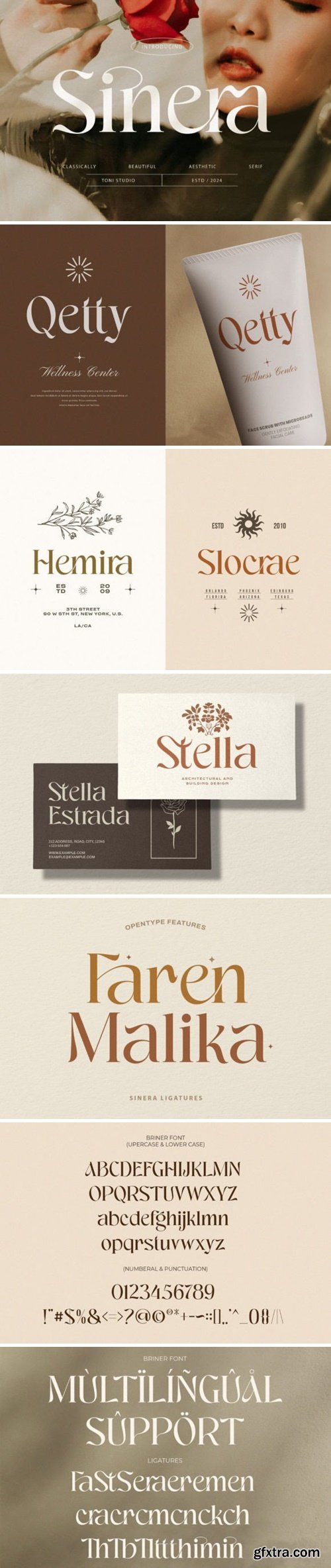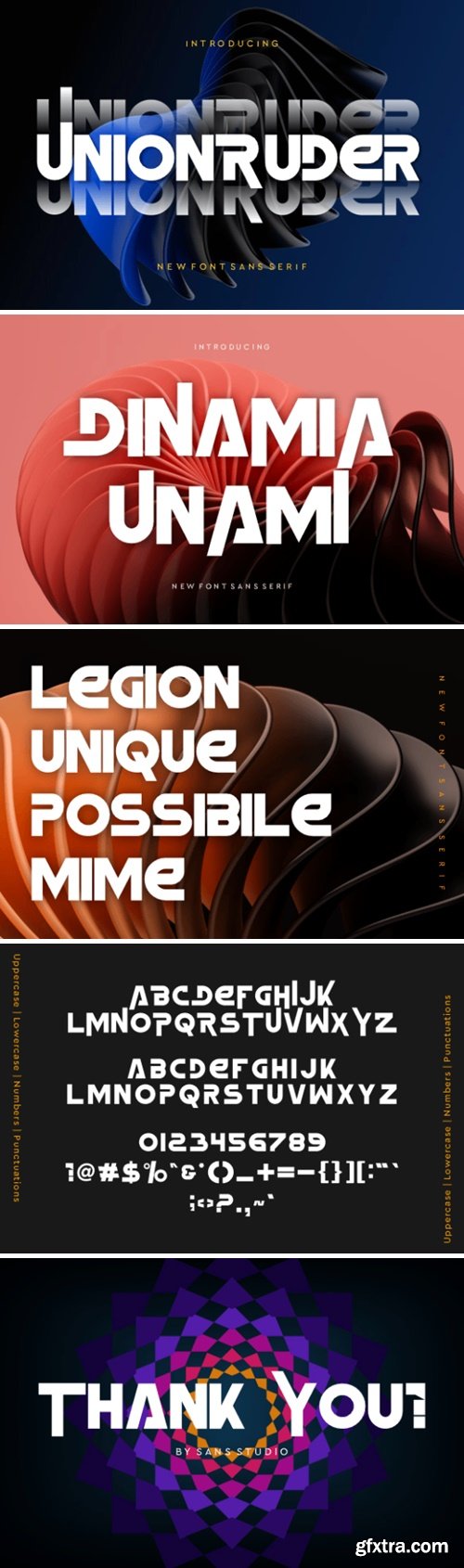
Sinera Font
Sinera Serif is a classy font that emphasizes elegance and simplicity. Designed with smooth, minimalist connecting lines, this font is ideal for use in titles, descriptions, logos, branding, magazines, product packaging, and invitations. Every curve and connection is created with style, providing a clean and elegant feel. Clean lines and soft curves provide a luxurious feel that will enhance the aesthetic of any project, making it the perfect choice for any design need.
Flash Turbo Font
Flash Turbo is a bold, futuristic display font designed for racing themes. Its sharp and fast-looking style makes it perfect for car racing logos, posters, and video games. The font gives a strong, high-speed vibe, ideal for anything related to speed and excitement.
Arleta Font
Introducing, Arleta, our modern and elegant sophisticated serif. This typeface is carefully crafted to ensure premium quality and a luxurious feel. The soft curves make this typeface unique and stand out, very suitable for logos, headlines, titles, and various other formal forms such as invitations, labels, logos, magazines, books, greeting/wedding cards, packaging, fashion, make-up, stationery, novels, labels or any kind of advertising purposes.
Unionruder Font
UnionRuder Sans-serif fonts are a type of typeface that lack the small extensions, known as “serifs,” at the ends of the letters. The name “sans-serif” comes from the French word “sans,” meaning “without.” These fonts are recognized for their clean and modern look, making them a popular choice for digital media and user interfaces.
Enhance your design projects with **Adoo Bado**, a bold and modern sans serif font that combines clean lines with a sleek, contemporary aesthetic. Featuring a full set of uppercase and lowercase characters, this typeface is ideal for creating impactful headers, striking logos, and eye-catching typography.
Manufake Font
Introducing Manufake, a blackletter typeface tailored for the innovative and avant-garde, featuring a distinctive blend of contemporary and classic aesthetics. The font encapsulates an air of sophistication while maintaining a streak of cool edge, making it a versatile tool for multiple languages. Flourishing in large scales and italic styles, it adds nuance to any visual context. Manufake boasts over 600 unique glyphs, bringing your t-shirt or streetwear designs, posters, and typography projects to life. With its audacious, style-forward appeal, Manufake gracefully meets the needs of magazine layouts, branding endeavors, or any high-impact visual designs, making a bold statement in every design scenario.